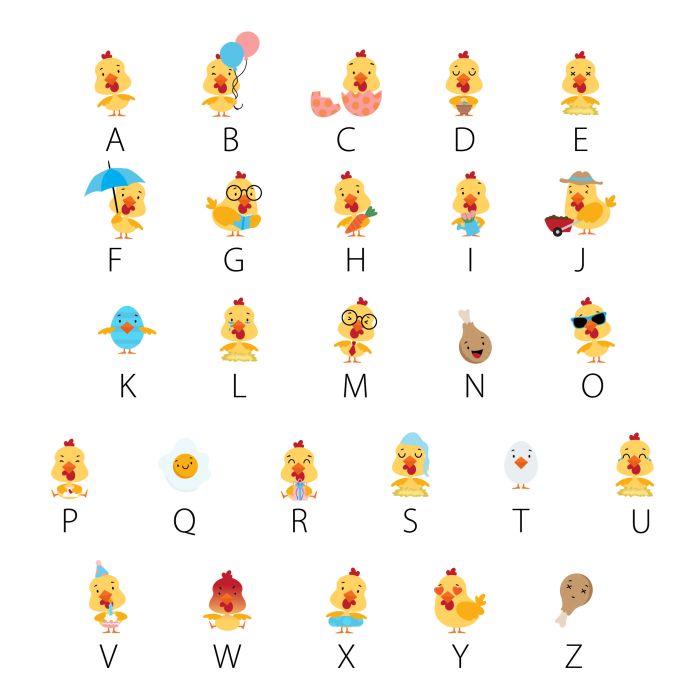
Chicken Nuggets Full Color Font is a playful and vibrant font with 26 different fun loving chickens with different actions and emotions. This font features bold, rounded letters filled with colorful patterns reminiscent of chicken nuggets. Perfect for adding a fun and whimsical touch to any design related to Easter, cards, crafts, parties, gifts, decor, planner stickers, classrooms, scrapbook pages and more!